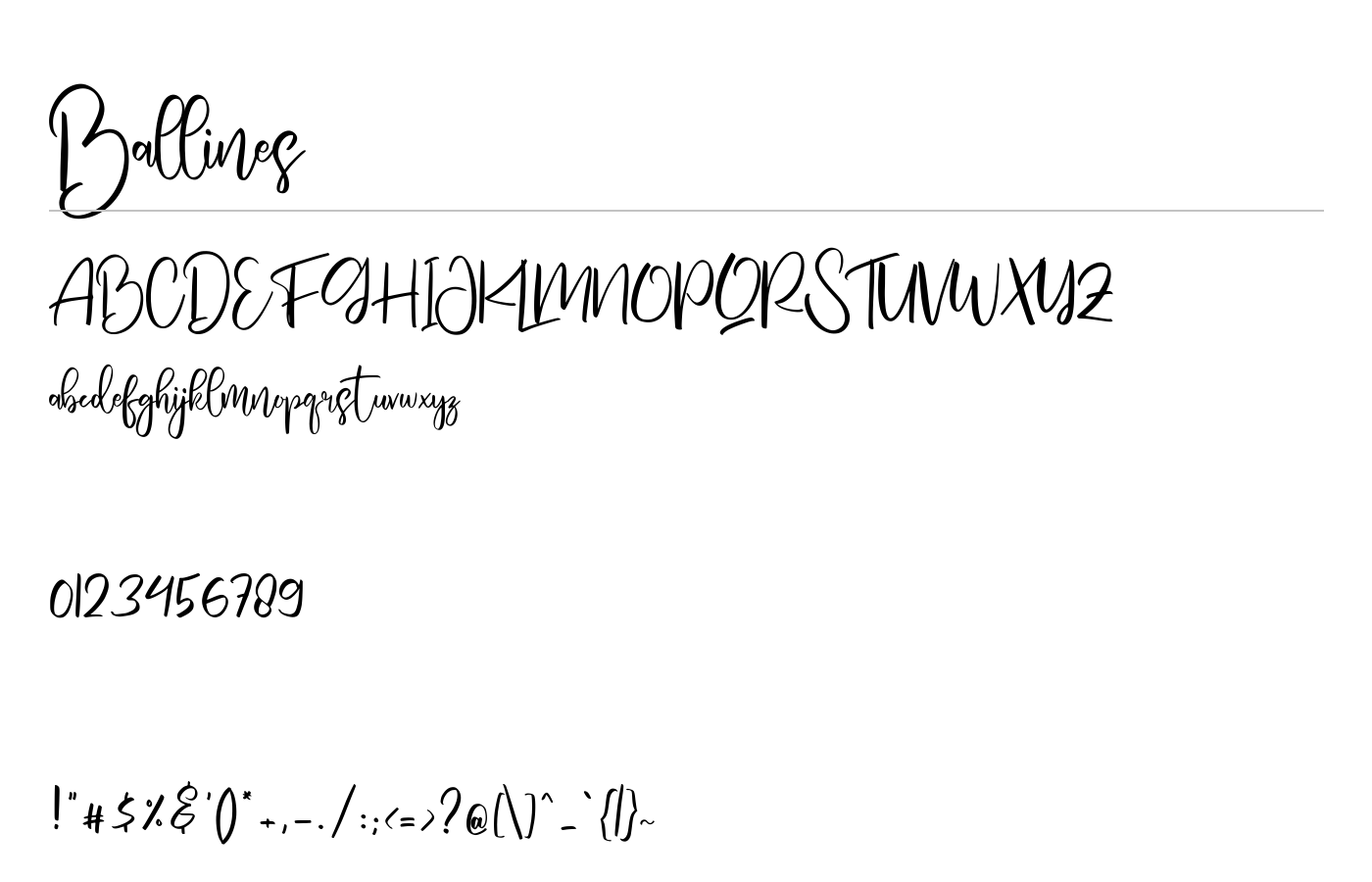
Ballines is a playful, handwritten script font with a lively, informal feel. Its tall, slender letters and smooth, flowing strokes give it a modern yet friendly personality, making it ideal for creative branding, invitations, and casual headlines. This font works well where a personal, approachable touch is needed, adding charm and character to designs without sacrificing readability.
Ballines Font
About Ballines Font
| Font family | Ballines Font |
| Designer | FannanStudio |